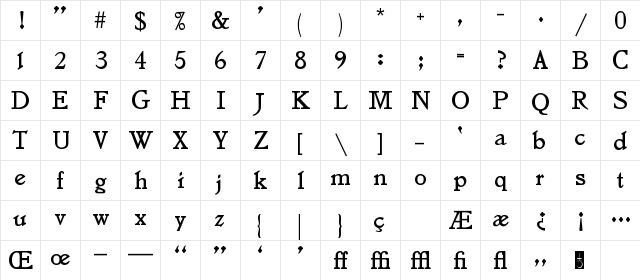
JensonTTFmod2 Regular
Design Context for JensonTTFmod2 Typeface
JensonTTFmod2 offers clean, dependable letterforms without strong stylistic allegiance, making it a practical choice for designers who need flexibility.